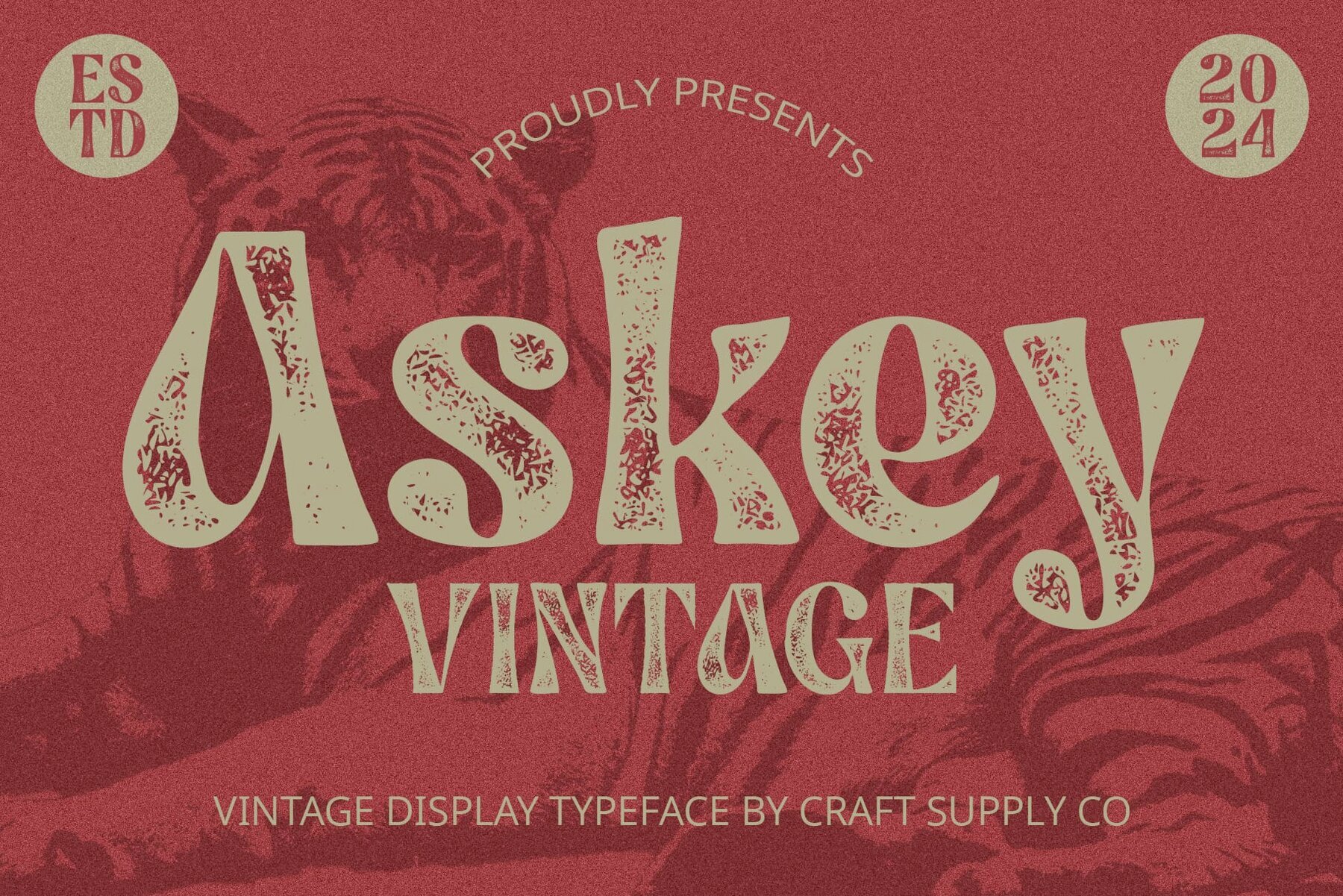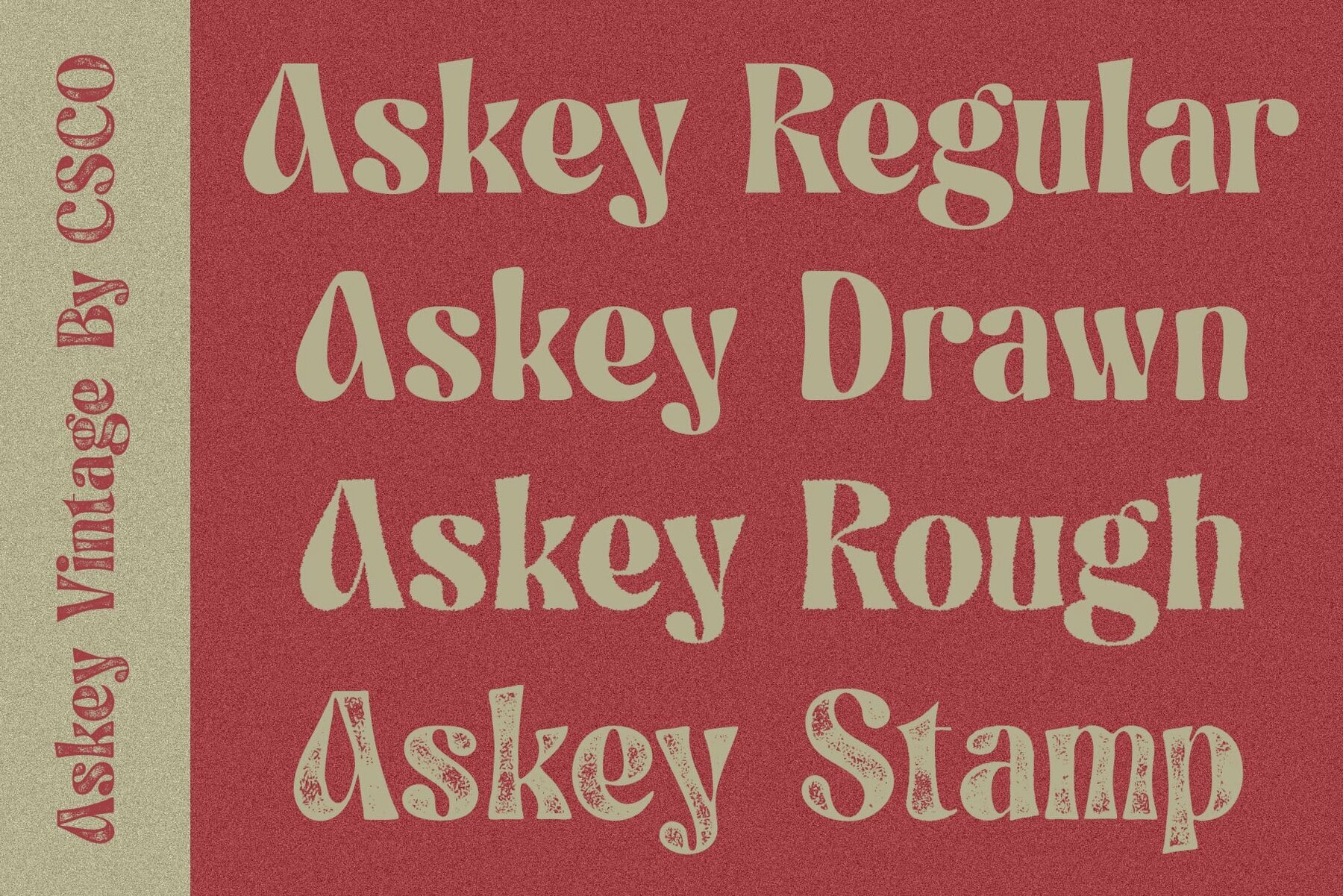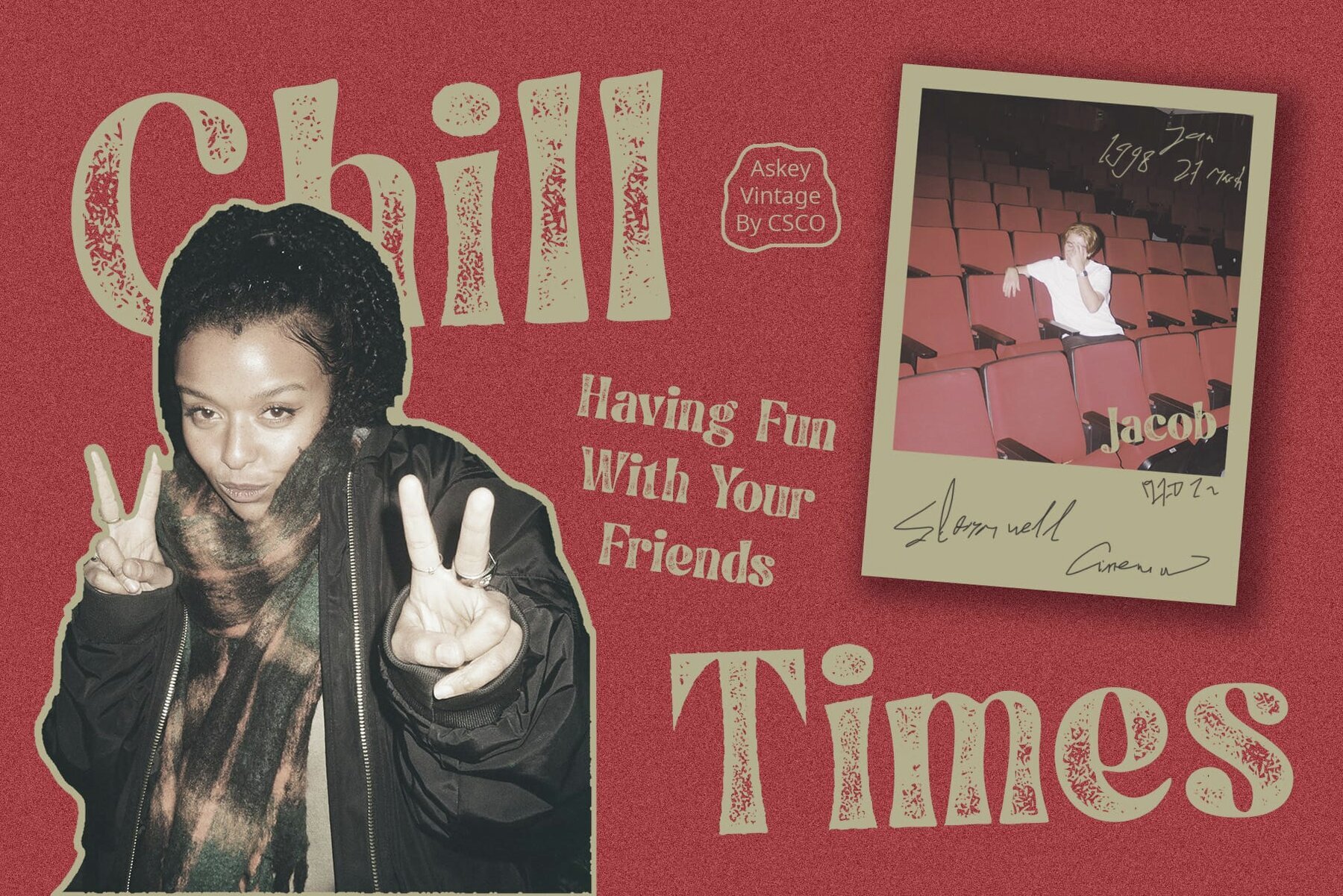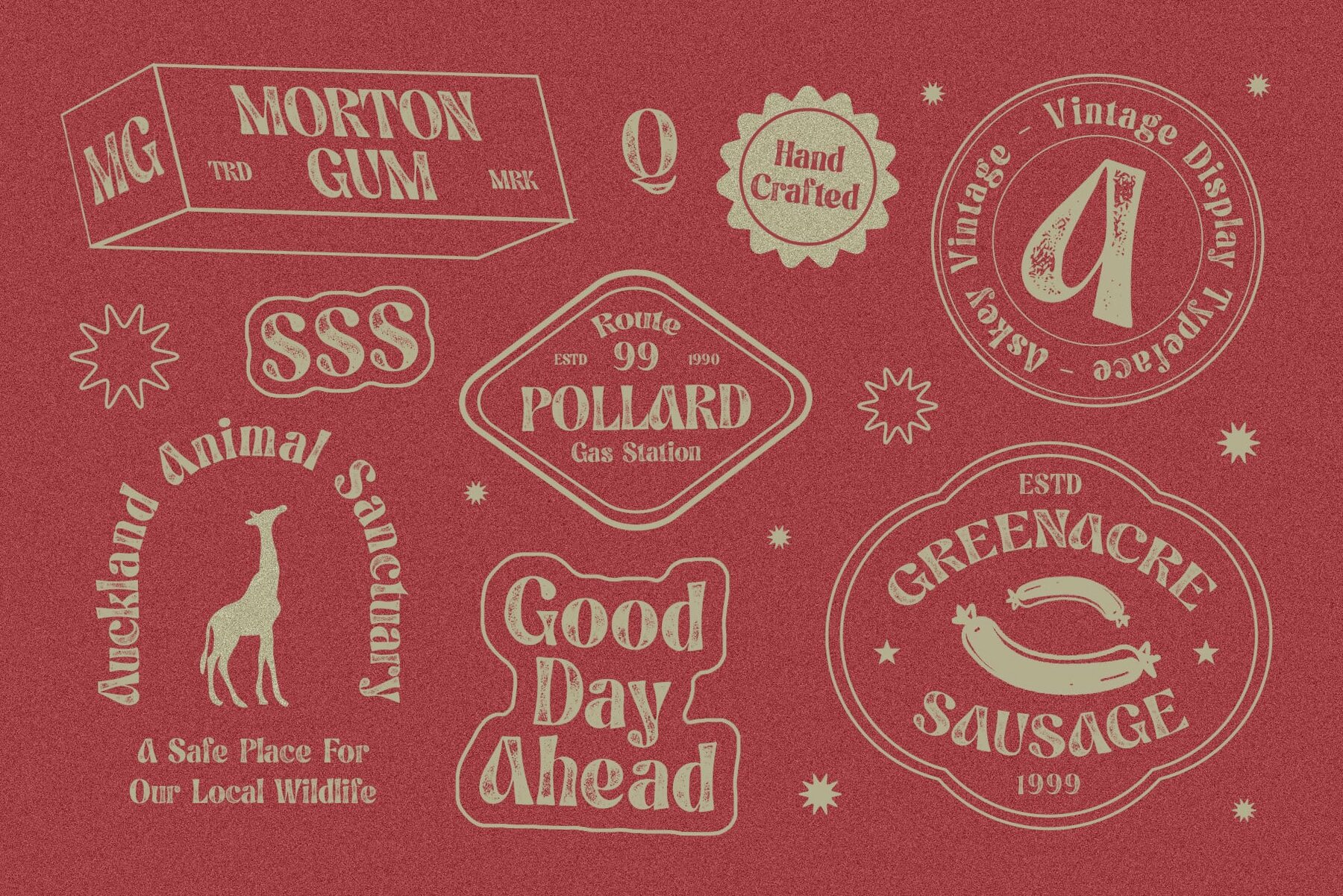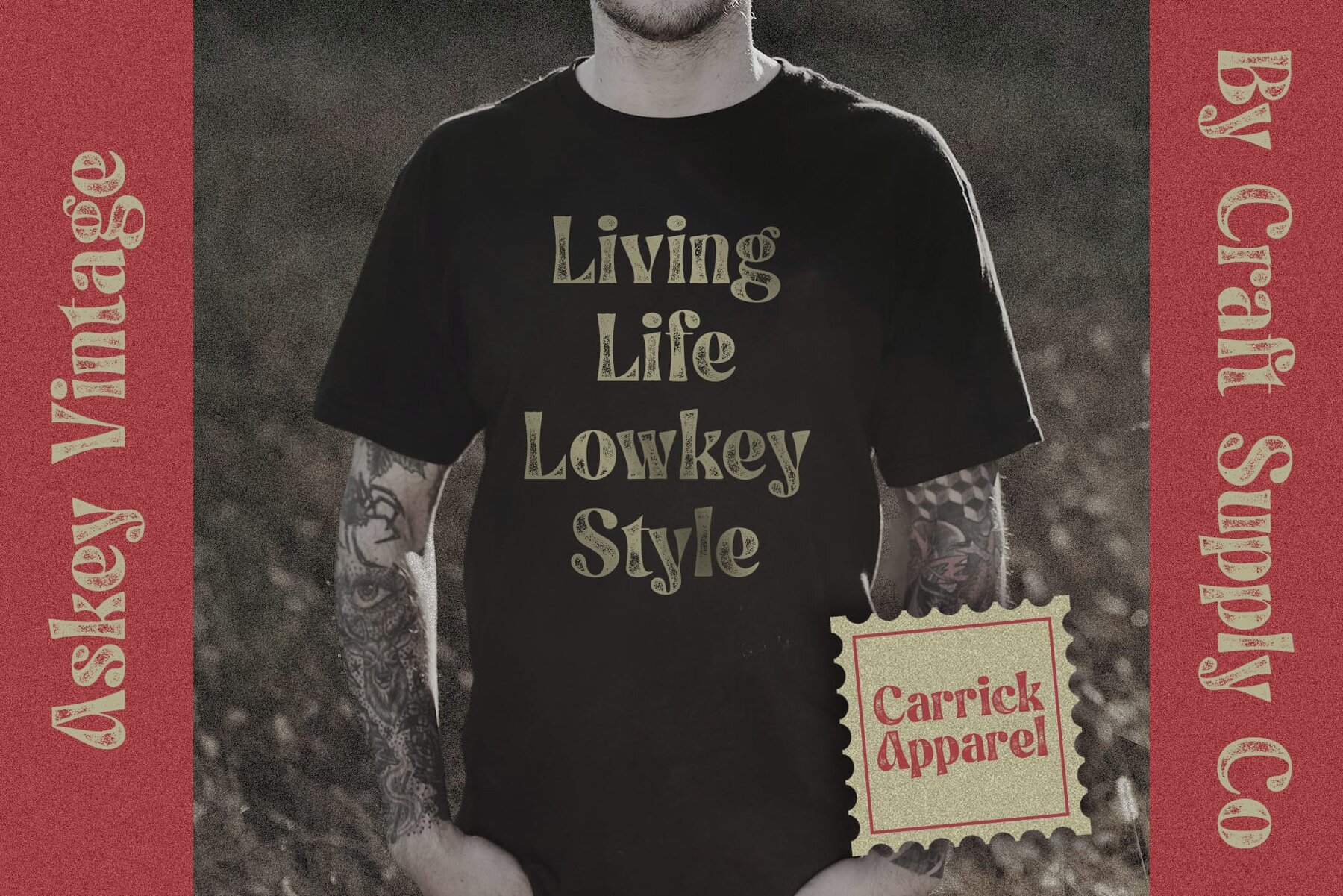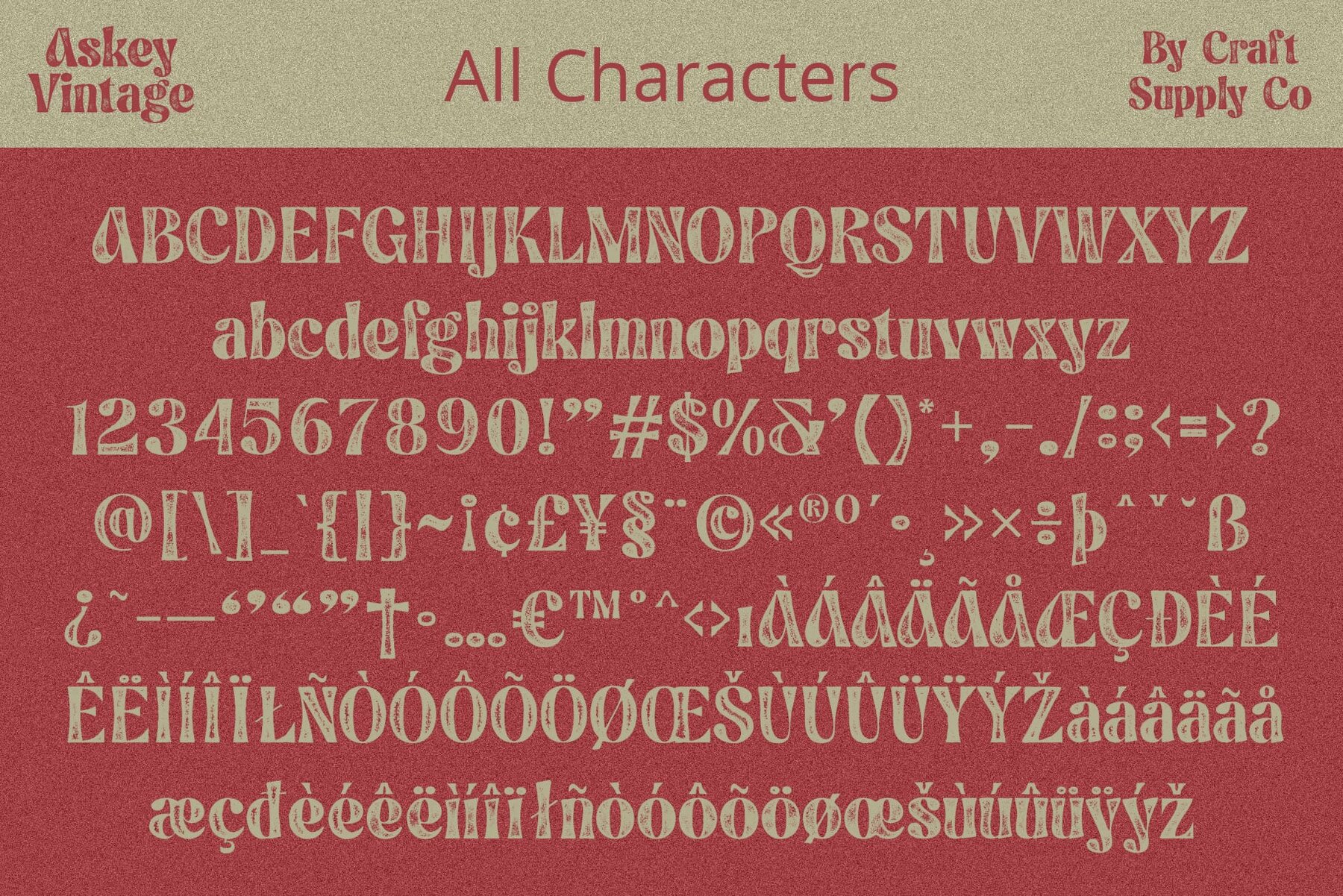
Askey Vintage Font
A Funky Twist on Display Typography Askey Vintage brings a unique display font with a funky twist, featuring playful shapes and a vintage stamp rough effect that adds character to any design. Inspired by vintage aesthetics, Askey Vintage exudes retro charm with its distinctive stamp rough effect. Each letter evokes nostalgia, reminiscent of old-school signage and posters. Designed to make a statement, Askey Vintage stands out across various design contexts. Whether for posters, album covers, or branding materials, it adds a touch of personality and flair. Beyond its funky appearance, Askey Vintage offers versatility and visual appeal. Its distinct style is suitable for a wide range of projects, from advertising campaigns to social media graphics. Unleash your retro creativity with Askey Vintage's funky shapes and vintage stamp rough effect. Perfect for making bold statements and adding personality to your designs, it is ideal for designers seeking a touch of nostalgia and vibrancy. No specialized software is needed to utilize this typeface. For any inquiries or assistance, please don't hesitate to get in touch. We appreciate your support in making your creative projects shine! Best regards, Craft Supply Co.Askey Vintage: Embracing Funky Retro Vibes
Retro Charm with Stamp Rough Effect
Perfect for Bold Statements
Versatile and Eye-Catching
Retro Creativity